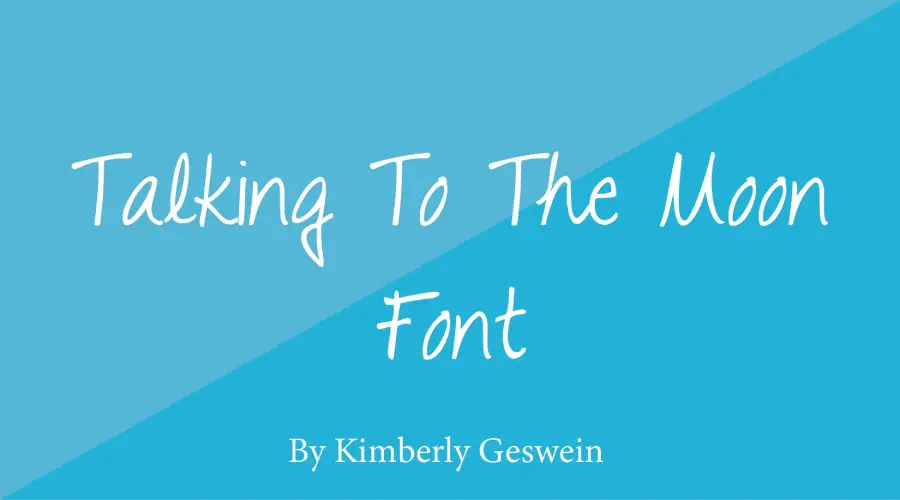
Talking to the Moon Font
Are you looking for a font that expresses your emotions and creativity? Check out the Talking to the Moon font. It is a casual and playful font with a unique and charming appearance. And today we will get to know this font and everything about it.
What is Talking to the Moon?
Talking to the Moon font is a handwritten script font that was created by Kimberly Geswein in 2011. It is inspired by the song “Talking to the Moon” by Bruno Mars, which is about longing for someone who is far away. The font has a natural and elegant look, with smooth curves and swashes. It also has some alternates and ligatures to add some variation and flair to your text. The font is light and thin, giving a sense of elegance and simplicity. It’s perfect for adding a personal touch to your projects.
Why Use Talking to the Moon Font?
Talking to the Moon font has many benefits. Here are a few of the most notable:
• Versatile: You can use it for a variety of purposes, making it a great choice for any project.
• Casual: It has a casual and playful appearance. That makes it a great choice for projects that need to look approachable and friendly.
• Unique: It has a unique and charming appearance, making it a great choice for projects that need to stand out from the crowd.
• Flexible: You can choose from a variety of weights for this font. This makes it a great choice for projects for different contexts.